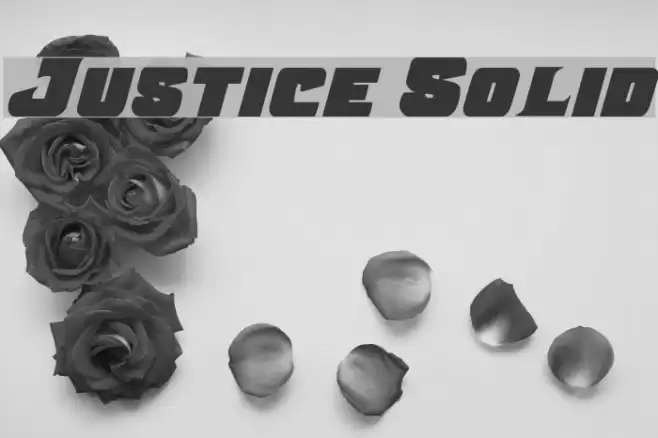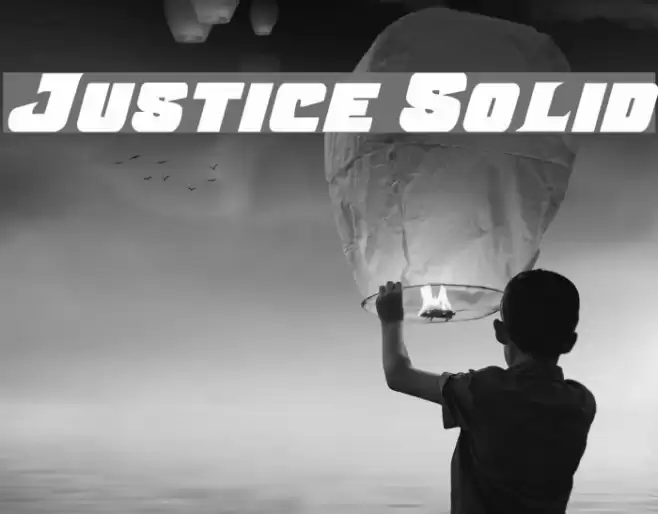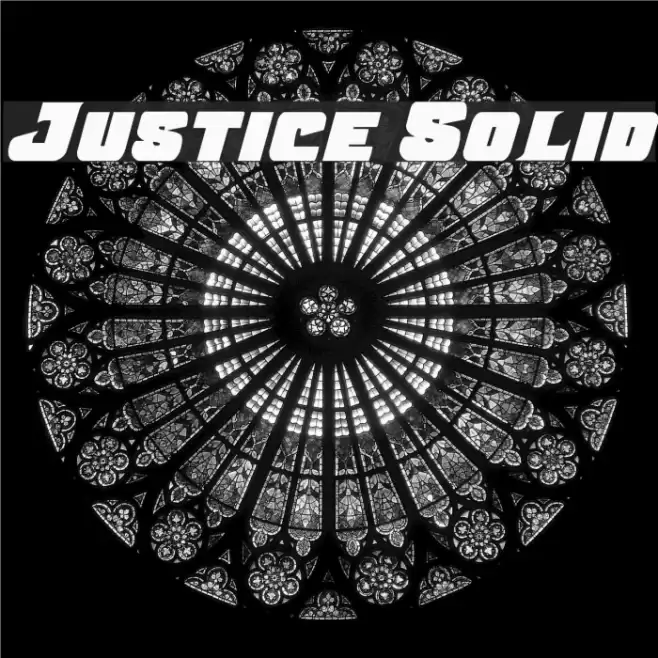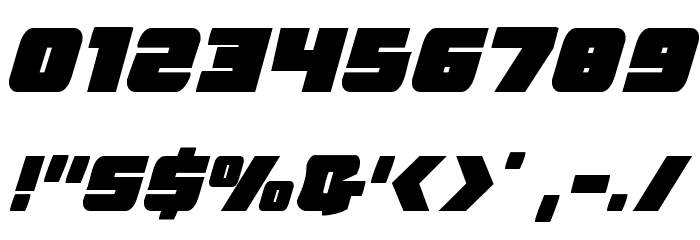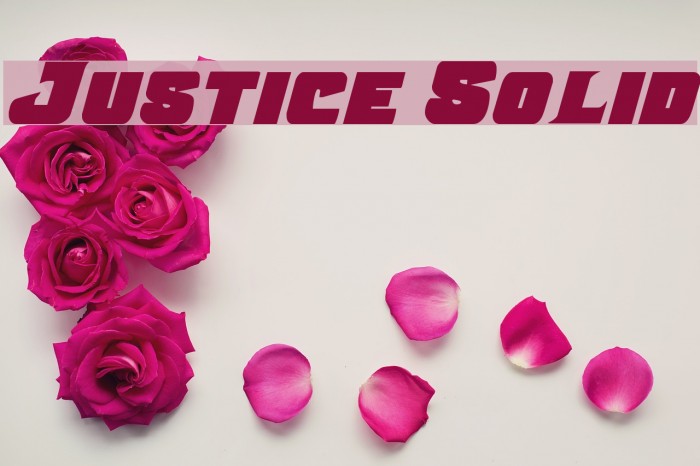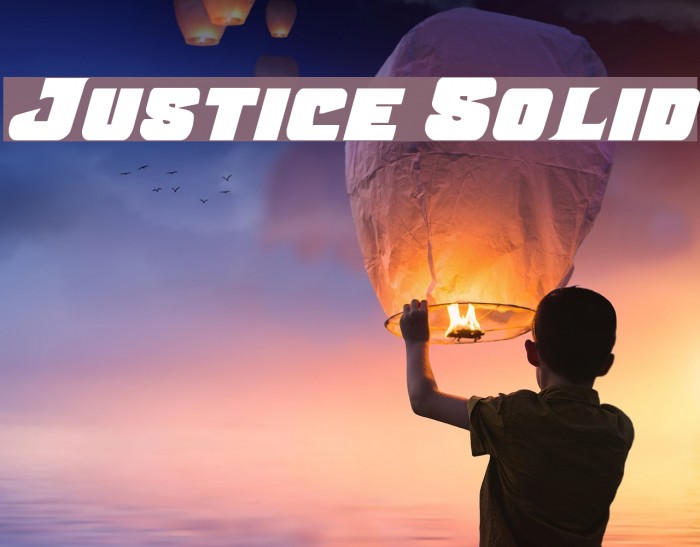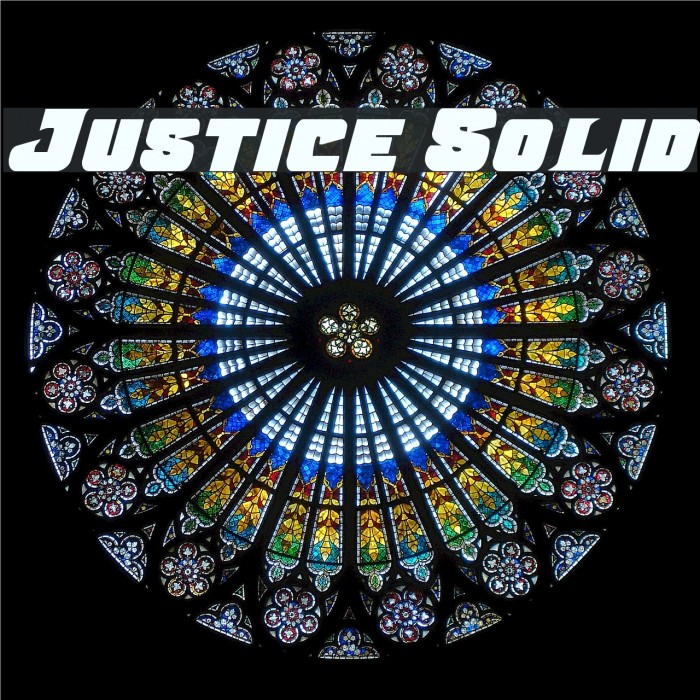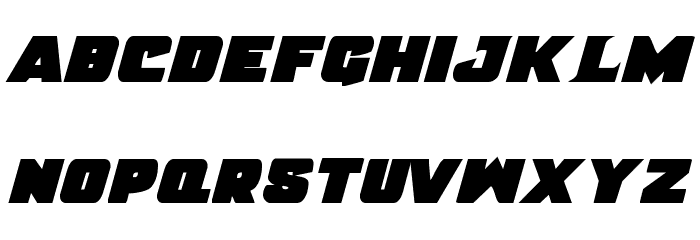
Justice Solid Font
Justice Solid Description
This font features a bold and dynamic design with a strong, angular structure. The characters are wide and have a distinct slant, giving them a sense of motion and energy. The strokes are thick and consistent, providing a solid and impactful appearance. The uppercase and lowercase letters maintain a uniform style, while the numbers and special characters complement the overall aesthetic. This font is ideal for making a statement and capturing attention with its powerful presence.
A bold, angular font with a dynamic and energetic style from Uncategorized fonts.
- Proposed Projects: Ideal for sports branding, action movie posters, video game titles, and dynamic advertising campaigns.
- Width: Expanded